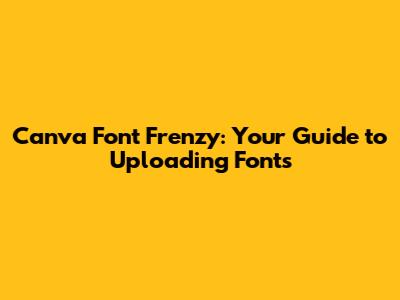
Canva Font Frenzy: Your Guide To Uploading Fonts
Hey there, design enthusiasts! Ever wondered how to download fonts into Canva and elevate your creative projects? You're in the right place! Canva's a fantastic platform, but sometimes you crave a little extra font flavor. Maybe you've got a specific brand font, or you've stumbled upon a gorgeous typeface that just screams "use me!" Whatever the reason, adding your own custom fonts to Canva is a breeze. Let's dive into the world of font uploading, making your designs pop with personality. We'll explore the ins and outs of getting those fonts into Canva, ensuring your projects stand out from the crowd. So, buckle up, because we're about to embark on a font-tastic journey!
Why Upload Fonts to Canva?
Okay, so why bother with uploading fonts when Canva already has a treasure trove of options? Well, my friends, the reasons are plentiful. First and foremost, using your own fonts lets you maintain brand consistency. If you're a business, sticking to your established font creates a cohesive visual identity, reinforcing your brand in the minds of your audience. Imagine seeing the same font on your website, social media, and marketing materials – that's some serious brand recognition power! Beyond branding, uploading fonts opens up a world of unique design possibilities. While Canva offers a great selection, the font universe is vast and varied. You might find a font that perfectly captures the vibe of a specific project, be it a vintage poster, a modern website header, or anything in between. By uploading, you're not limited to the pre-installed options, giving you the freedom to express your creativity without boundaries.
Furthermore, using custom fonts allows you to infuse your personality into your designs. Are you a minimalist? Maybe a bold, sans-serif font is your jam. Or perhaps you're a whimsical soul who loves a playful script font. Whatever your style, there's a font out there that perfectly reflects it. Uploading lets you use those fonts, turning your designs into a true reflection of you or your brand. Plus, let's not forget the fun factor! Discovering and experimenting with new fonts is a blast. It's like finding a new flavor for your visual palate. So, whether it's for branding, unique designs, or sheer creative joy, uploading fonts is a game-changer. It's about taking your Canva game to the next level.
The Benefits in a Nutshell
• Brand Consistency: Maintain a cohesive visual identity using your established brand fonts. Keep the message uniform and professional for your brand.
• Unleash Creativity: Unlock a wider range of design possibilities with unique and specialized fonts.
• Express Yourself: Infuse your designs with your personal style using fonts that speak to you.
Step-by-Step: Uploading Fonts in Canva
Okay, are you ready to get those fonts into Canva? It's easier than you might think! Here's a step-by-step guide to get you started. First, make sure you have a Canva Pro account or are on a Canva for Teams plan. Font uploading is a premium feature, so you'll need one of these subscription levels to access it. If you don't have one, you might need to upgrade. Once you're all set with your account, let the fun begin. Log in to your Canva account and either start a new design or open an existing one. Look for the